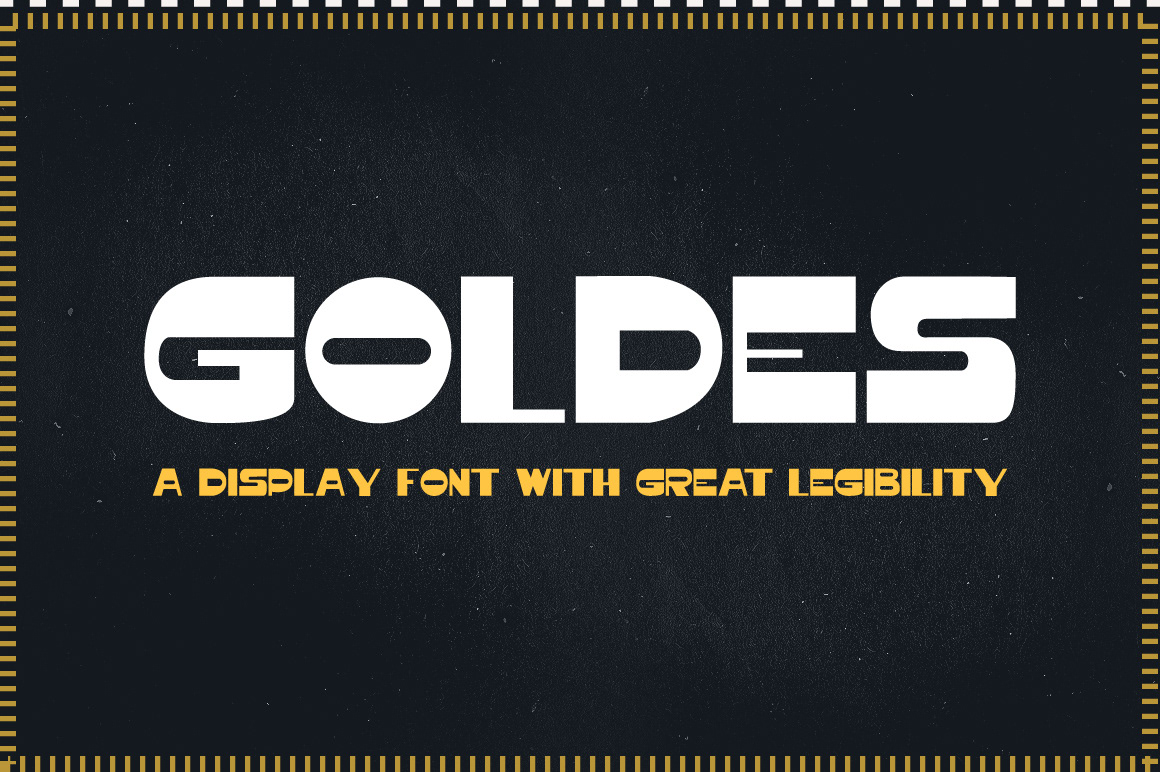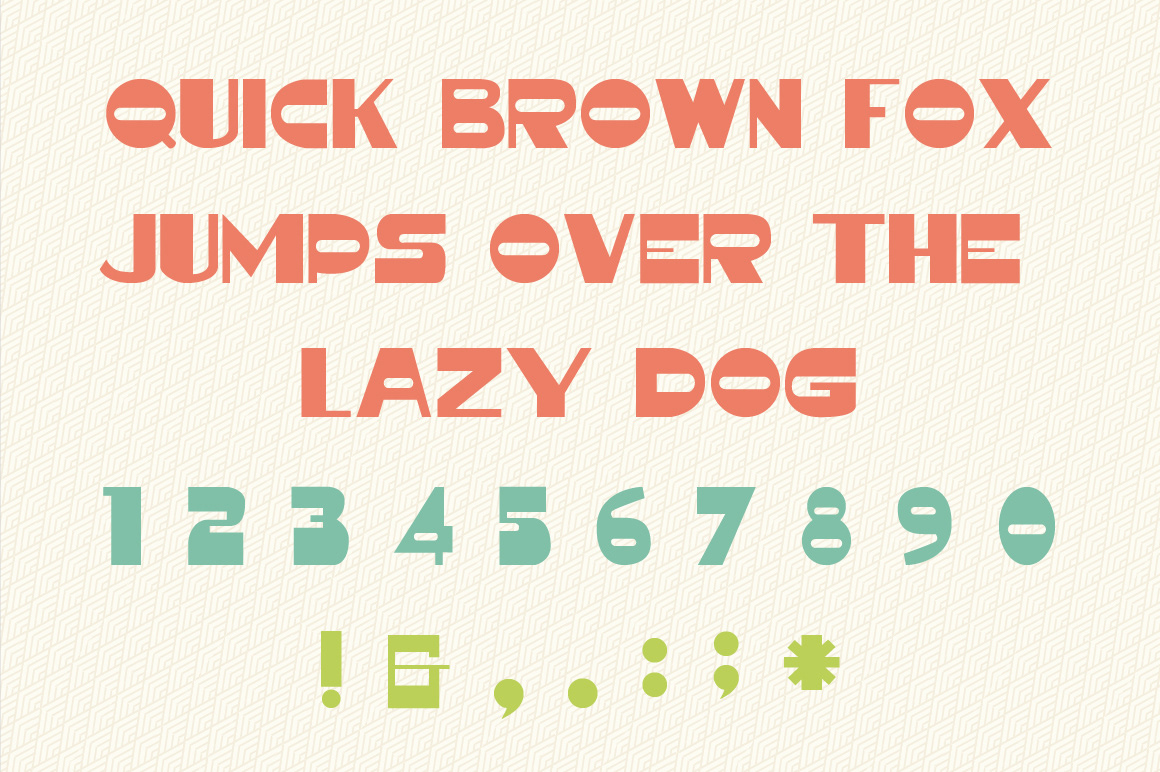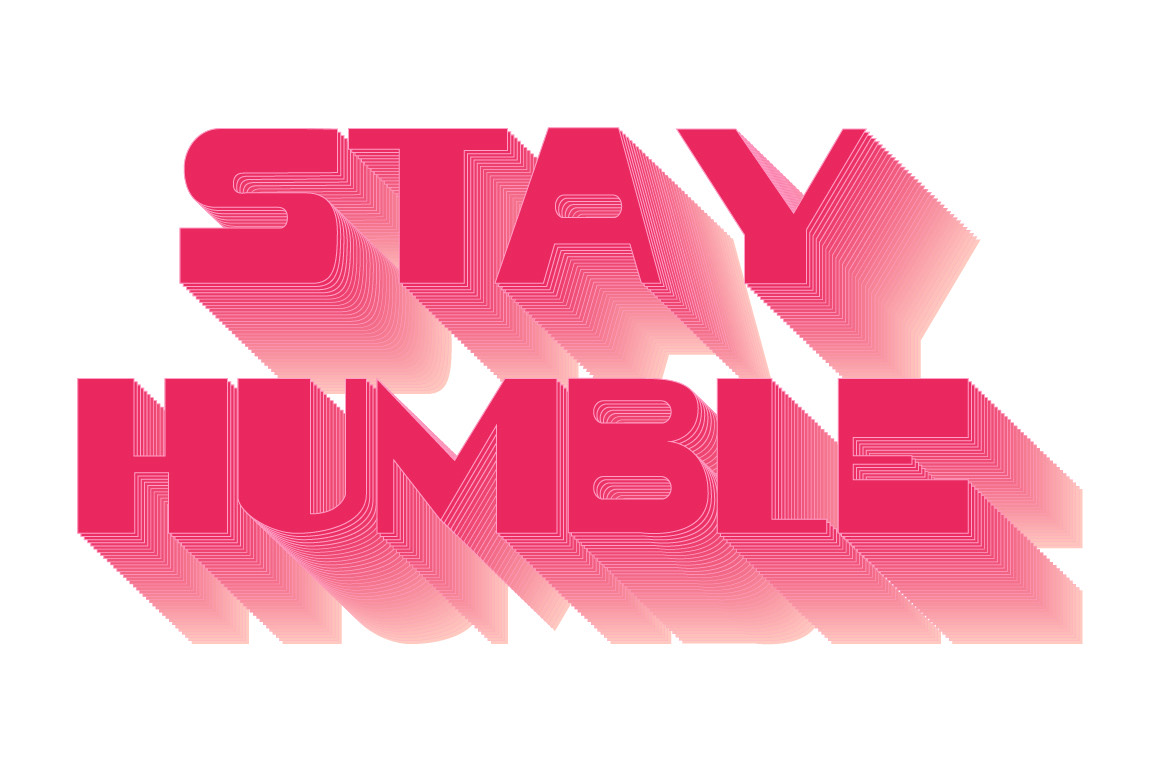
Goldes is a display font with great legibility and elegance. This font is a mixture of ancient and modern letterforms those sync well with design. Every single glyph had designed with care and love. This typeface comes with uppercase, numerals and punctuations.